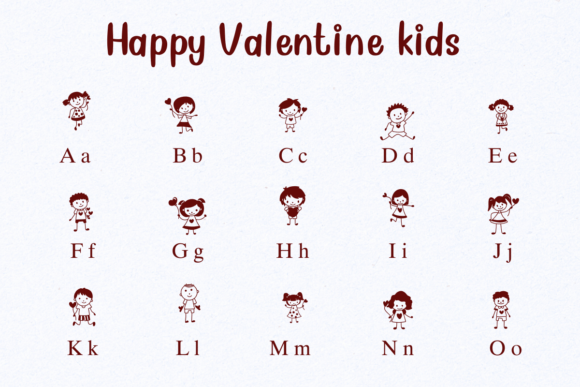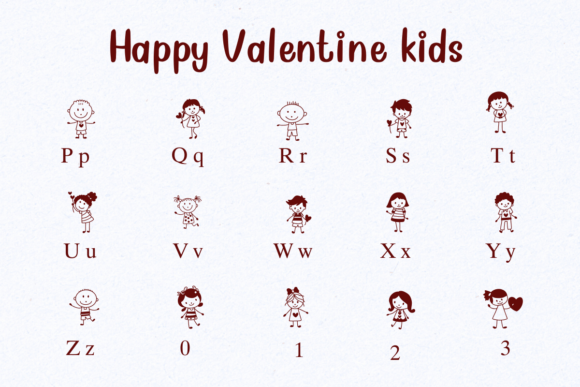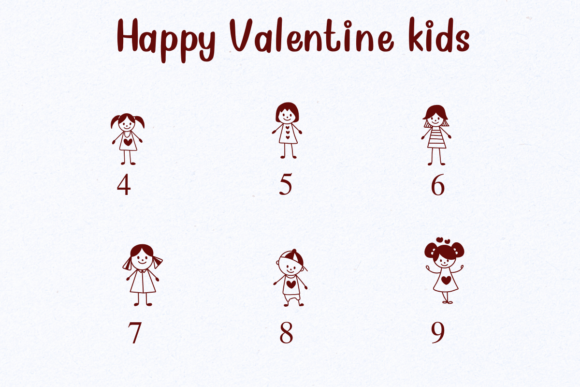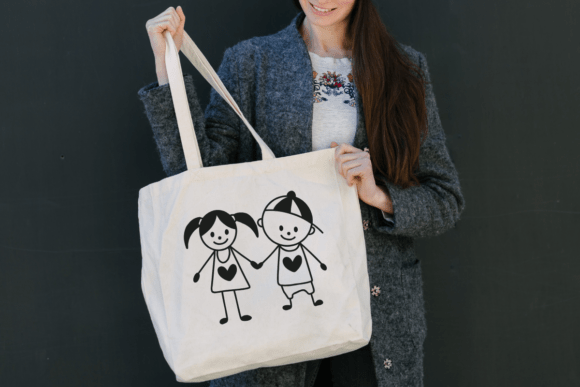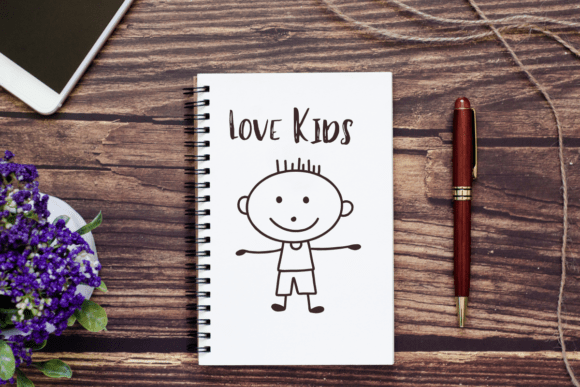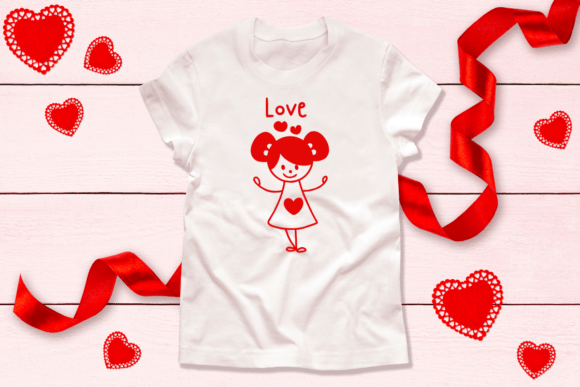
Happy Valentine Kids Font: The Perfect Addition to Your Design Collection
Are you a designer, crafter, or DIY enthusiast looking for a fun and playful font to add to your Valentine’s Day projects? Look no further than the Happy Valentine Kids Font! This delightful font is perfect for creating adorable designs, crafts, and projects for kids and adults alike.
What is Happy Valentine Kids Font?
The Happy Valentine Kids Font is a unique and charming font designed specifically for Valentine’s Day projects. It features cute and colorful doodles, cartoon-style illustrations, and playful typography that will add a touch of whimsy to any design. The font comes in various formats, including OTF, TTF, Procreate Font, Affinity Designer Font, and Affinity Photo Font, making it compatible with a range of design software.
Key Features of Happy Valentine Kids Font
• Cute and playful design: The Happy Valentine Kids Font features adorable doodles and cartoon-style illustrations that are perfect for Valentine’s Day projects.
• Coloring outline: The font includes a coloring outline feature, allowing you to create custom coloring pages and projects.
• Dingbats and doodles: The font includes a range of dingbats and doodles, perfect for adding a playful touch to your designs.
• Cartoon-style illustrations: The font features cartoon-style illustrations, adding a fun and whimsical touch to your projects.
How to Use Happy Valentine Kids Font
The Happy Valentine Kids Font is easy to use and can be incorporated into a range of design projects, including:
• Valentine’s Day cards and invitations: Create adorable Valentine’s Day cards and invitations using the font’s playful typography and illustrations.
• Crafts and DIY projects: Use the font to create custom crafts and DIY projects, such as coloring pages, party decorations, and gift tags.
• Digital designs: Incorporate the font into your digital designs, such as social media graphics, blog posts, and email newsletters.
• Print-on-demand products: Use the font to create custom print-on-demand products, such as t-shirts, mugs, and tote bags.
Benefits of Using Happy Valentine Kids Font
Using the Happy Valentine Kids Font offers a range of benefits, including:
• Time-saving: The font’s pre-designed illustrations and typography save you time and effort in creating custom designs.
• Unique and playful designs: The font’s cute and playful design ensures your projects stand out from the crowd.
• Versatile: The font can be used in a range of design projects, from digital designs to print-on-demand products.
The Happy Valentine Kids Font is a delightful addition to any design collection. With its cute and playful design, multiple file formats, and versatile uses, it’s perfect for designers, crafters, and DIY enthusiasts looking to create adorable Valentine’s Day projects. Download the Happy Valentine Kids Font today and add a touch of whimsy to your designs!